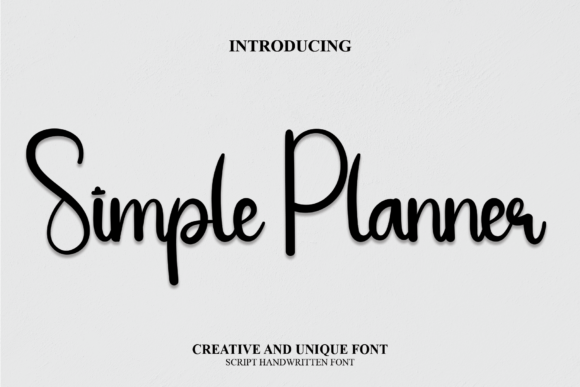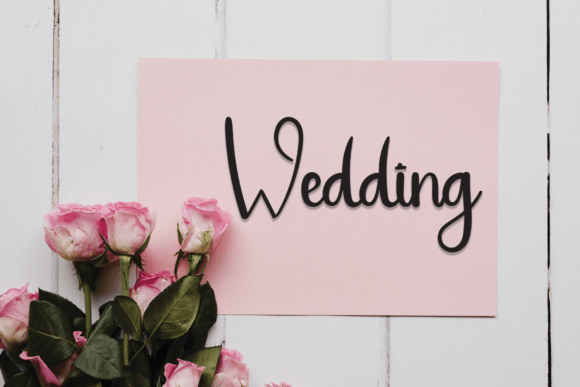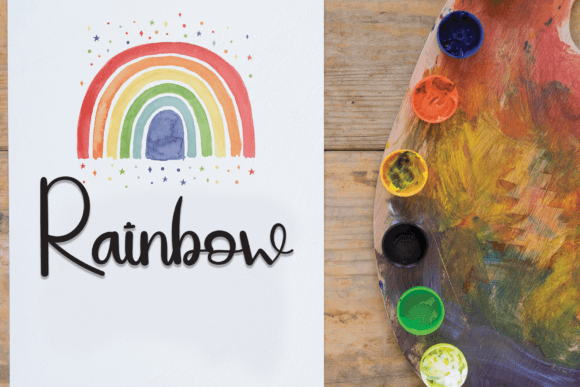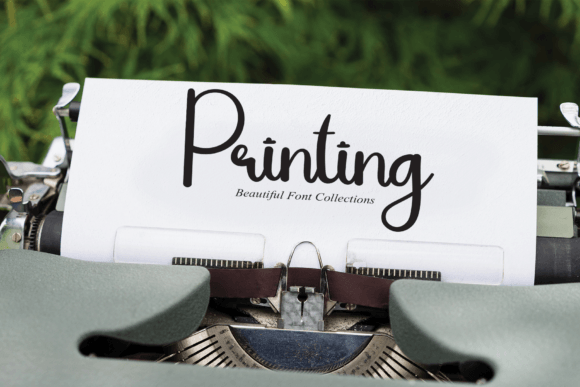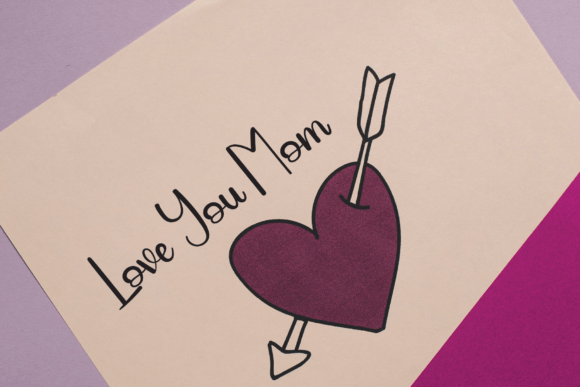
Simple Planner Font
Add a warm and approachable touch to your creative work with the Simple Planner font. This handwritten script is designed to be friendly and versatile. Whether you’re working on crafts, digital designs, presentations, or greeting cards, this font has the potential to become your go-to choice.
The Simple Planner font offers a clean and natural style. Its well-balanced strokes and clear characters make it highly readable. This makes it suitable for both casual and formal projects, adding a personal and inviting feel to your designs.
Each character in the Simple Planner font is crafted with care to ensure clarity and charm. The smooth, elegant strokes create a harmonious look that enhances your creative projects. It works perfectly for headlines, quotes, invitations, and decorative text.
Despite its straightforward and friendly design, the Simple Plannerfont remains clear and legible at various sizes. Whether used for bold titles or subtle accents, it adds warmth and clarity to your work.
Using this font will help your projects stand out with a memorable and inviting style. If you want your creative work to feel approachable and polished, the Simple Plannerfont is an excellent choice.
In summary, the Simple Plannerfont fits a wide range of creative applications. From crafts and presentations to greeting cards and digital designs, it brings warmth and friendliness. Download it today and create beautiful, versatile designs with this handwritten script.